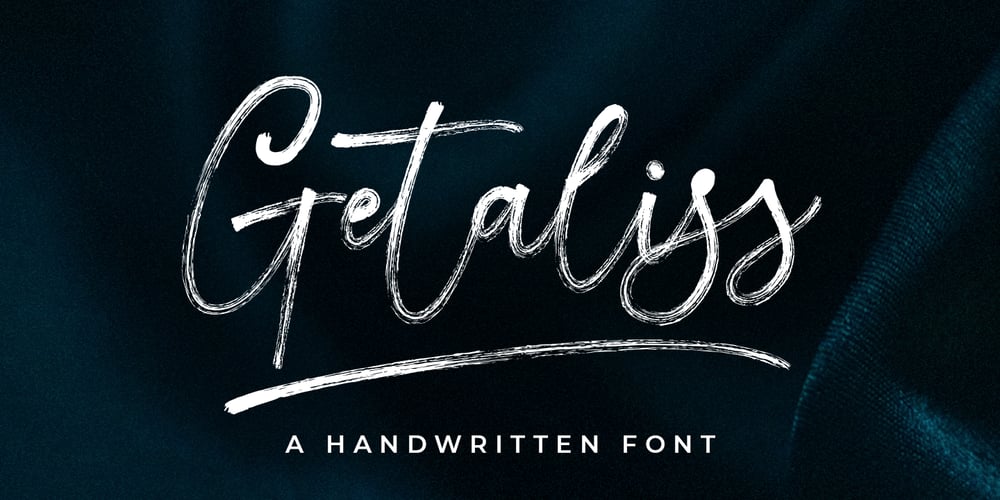
Getaliss Font Family was designed by khaidir and published by Gatype. Getaliss contains 2 styles and family package options. Getaliss is a casual script font suitable for a variety of projects, such as branding, invitations, merchandise, websites, advertisements, magazines and more. You’ll get a full set of lowercase and uppercase letters, numbers and punctuation, multilingual symbols, ligatures, and extra strokes.Please message if you have any questions or concerns, and don’t hesitate to say hello.Thank You!